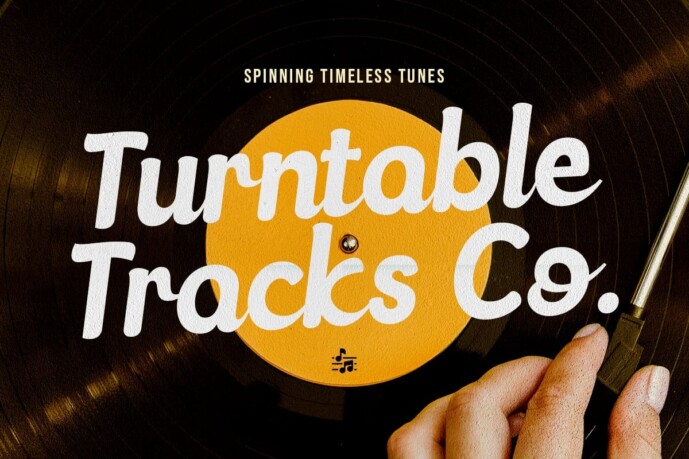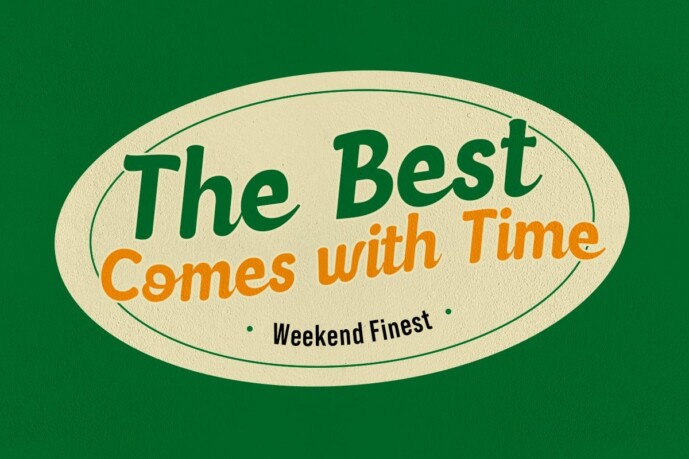
Bungalow Script Typeface
Bungalow Script Typeface is a modern typeface that brings a touch of elegance and charm to any project. With its soft, flowing strokes and carefully crafted characters, Bungalow is ideal for creating chic logos, elegant branding, or stylish invitations. Its graceful curves add a handwritten touch that is both personal and refined, making it a versatile choice for any creative endeavor.
Inspired by the natural beauty of calligraphy, Bungalow captures the essence of modern sophistication. It is designed to convey a sense of warmth and fluidity, while maintaining a refined look. Ideal for wedding invitations, signature logos, or fashion brands, this font adds a personalized and professional touch to your designs. Whether you are designing for high-end products or creating memorable keepsakes, Bungalow’s modern script style ensures that your work stands out. Its graceful lines and artistic style make it a font that seamlessly blends elegance with contemporary appeal.